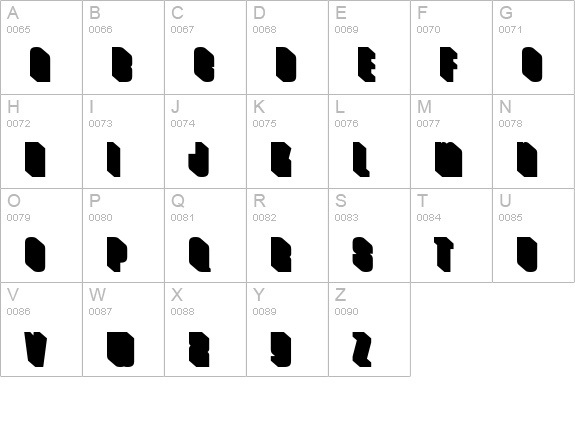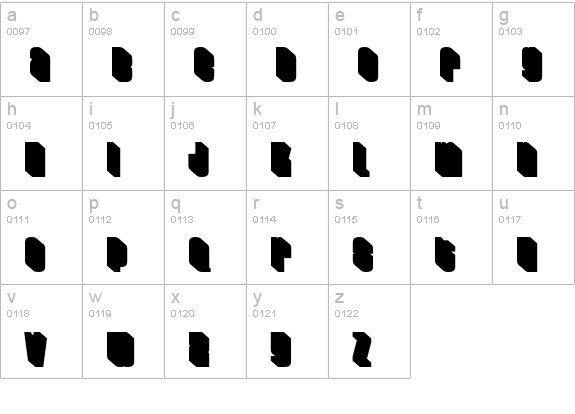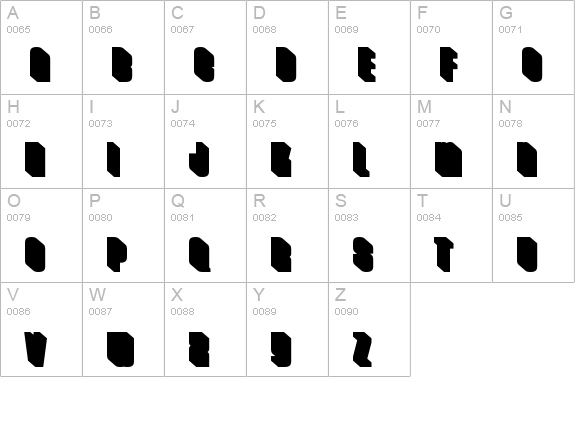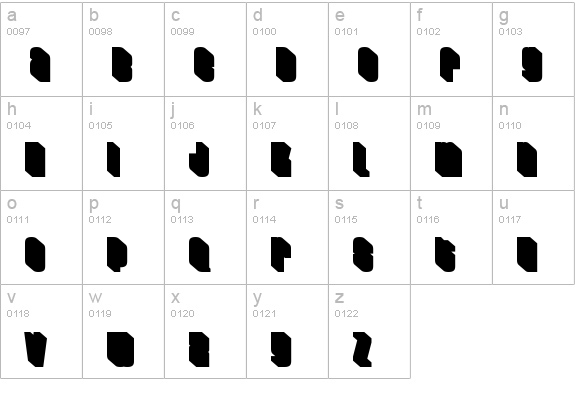
HouseGothic 3DShadow Font Details
HouseGothic 3DShadow font is a striking and bold typeface that adds a touch of sophistication and modernity to any design project. Its three-dimensional shadow effect creates a sense of depth and dimension, making it perfect for headlines, logos, and other visual elements that demand attention. This unique font is available for free download at FontsMarket.com, making it easily accessible for designers and creatives looking to elevate their work with a touch of gothic flair. Whether you're working on a website, poster, or branding project, HouseGothic 3DShadow font is sure to make a lasting impression with its bold style and dynamic presence. Download it today and add a touch of drama to your designs!